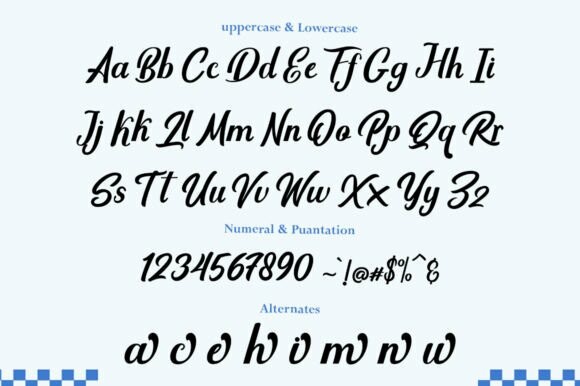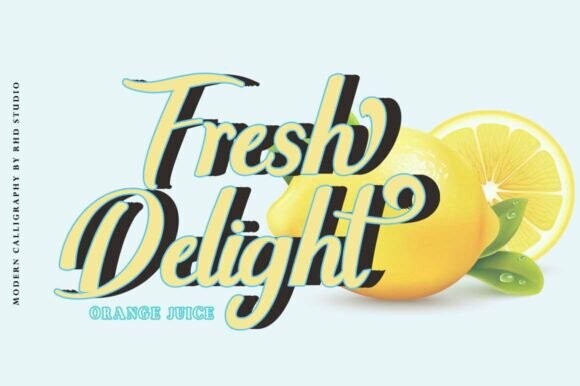
Wuling Font
Wuling Font – Curve Typeface that is a carefully crafted and balanced script typeface with personality. You can use it as a logo, badge, emblem, packaging, title, poster, t-shirt/clothing, greeting card and wedding invitation. Flowing characters are ideal for creating engaging messages. Mix and match the Wuling Typeface with a set of alternative characters to suit your project.